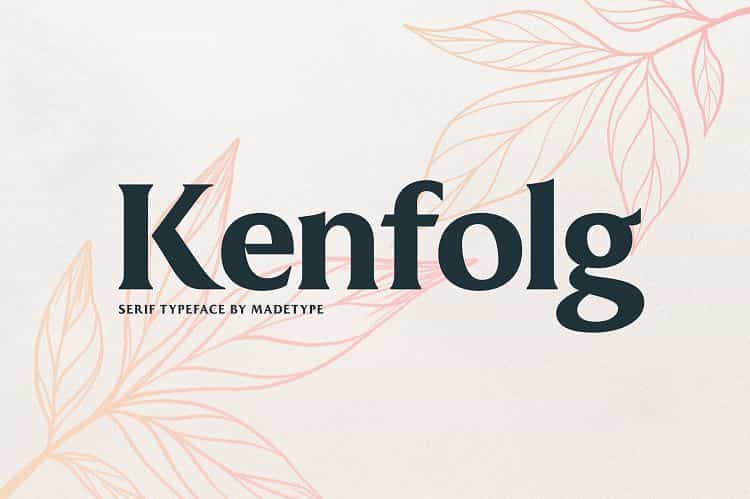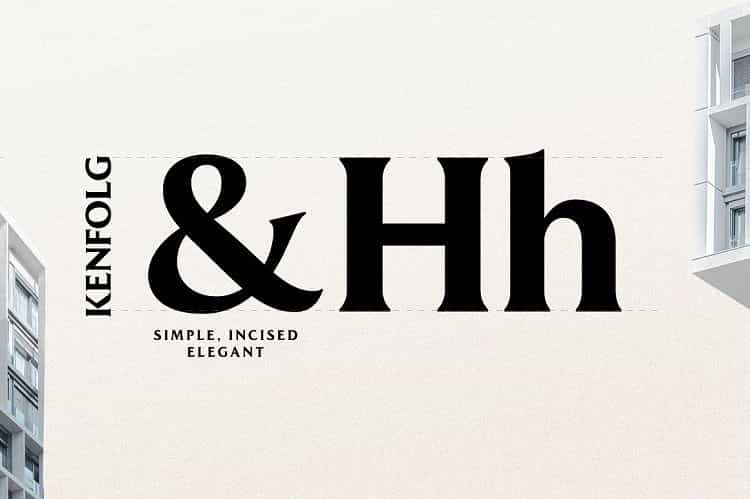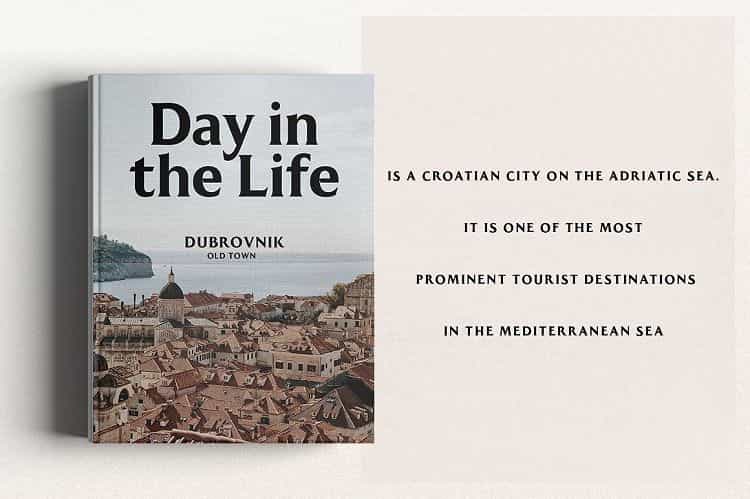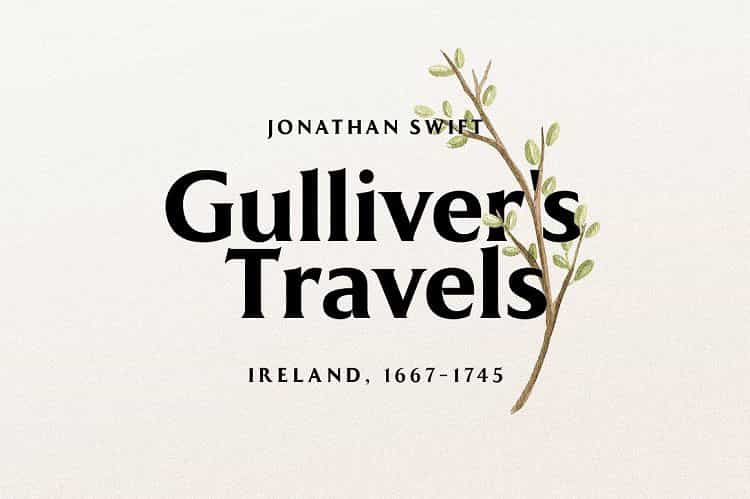
Discover MADE Kenfolg Serif Font, part of the Serif collection—a versatile and unique font perfect for adding a personal touch to your projects. Download it for free and enjoy crafting designs with style, from invitations to social media posts. This font is available exclusively for personal use, giving you the freedom to create without limits. Unlock your creativity with MADE Kenfolg Serif Font today!
Thank you for checking out Kenfolg Font. This is an example of a titling serif typeface. It is a very flexible font that can be used both in big and small sizes. Kenfolg design and MadeType are joint creations. The Kenfolg serif font will perfect for many project: book, magazines, logo, branding photography quotes blog header poster advertisements etc.